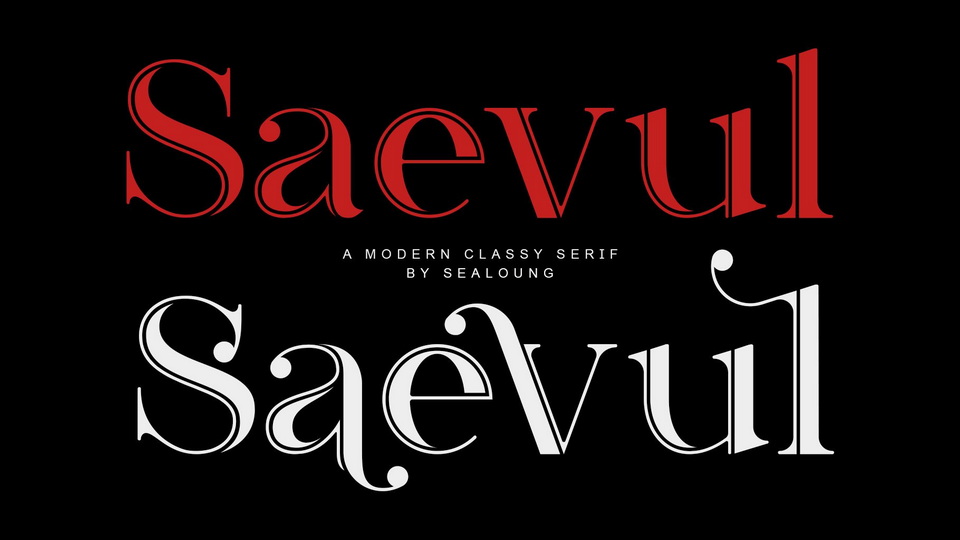
Download Saevul font, a modern serif typeface with a unique and classy style. Saevul font has a graceful and unique alternates style, which is perfect for your design projects.
Designer: Sealoung